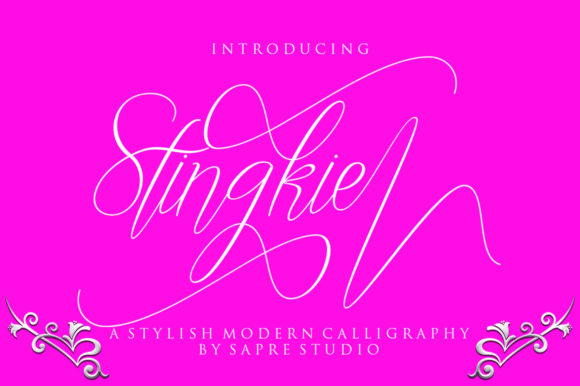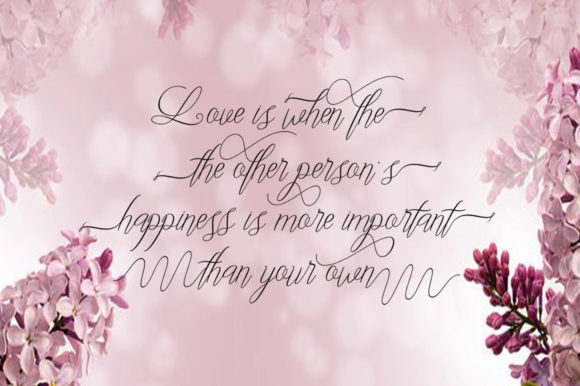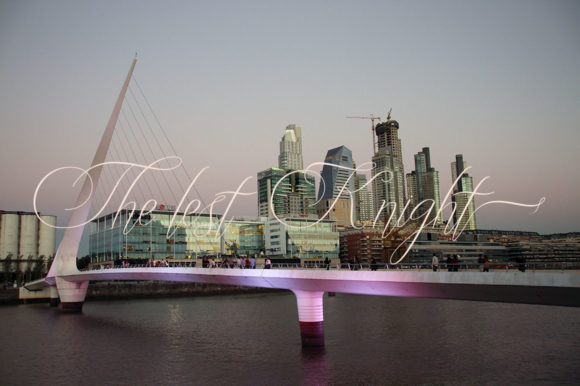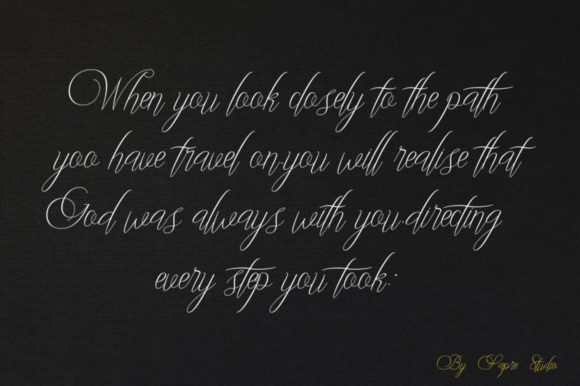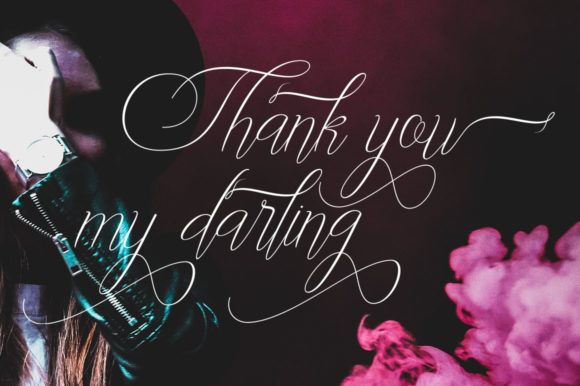
HomeScript FontsStingkie Font Script Fonts Stingkie Font FacebookXPinterestWhatsApp Stingkie Font Poster 2 Stingkie Font Poster 3 Stingkie Font Poster 4 Stingkie Font Poster 5 Stingkie Font Poster 6 Stingkie Font Poster 7 Stingkie Font Poster 8 About Stingkie Font The Stingkie is an amazing script font. It has a varying baseline and brings a classic and modern touch. DOWNLOAD ON CREATIVE FABRICAThis font is sold and delivered by Creative Fabrica. Font Canyon may earn a commission if you buy through this link. People also explored Moelya Font Antrik Font William Font Crusty Graffiti Font Overture Font Kindergarten Font Lovely Life Font Earthan Font Achilles Font 307 0 TagsStingkie Font Previous articleRaceland FontNext articleMaumere Script Font LEAVE A REPLY Cancel reply Comment: Please enter your comment! Name:* Please enter your name here Email:* You have entered an incorrect email address! Please enter your email address here Website: Save my name, email, and website in this browser for the next time I comment. Personal Use Free Black Jalal Personal Use Free Read more about this font Stigma Font Personal Use Free Read more about this font Cataclysmo Personal Use Free Read more about this font Cloudy Night Personal Use Free Read more about this font BLOG To increase your work productivity, choose the most readable fonts. In today's fast-paced work environment, where digital communication and information consumption are integral to our daily routines, the choice of fonts can significantly impact... How to Install and Use Fonts on Windows, macOS, and Web Projects Transform Your Website: Elevate Your Typography with 7 Best Web Font Generators Where to Buy American Fonts Online in 2024